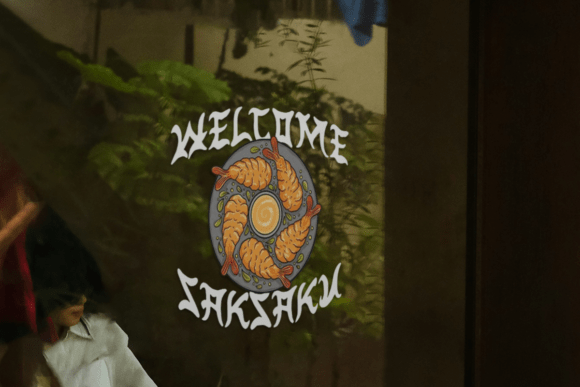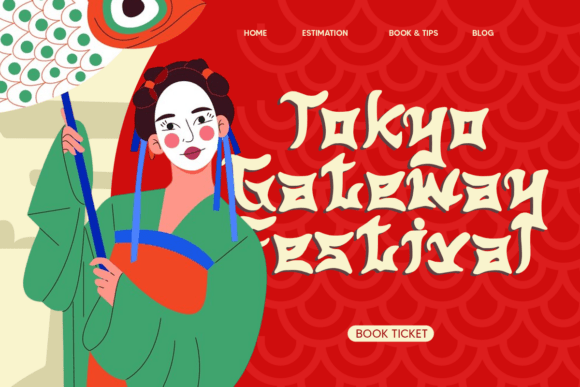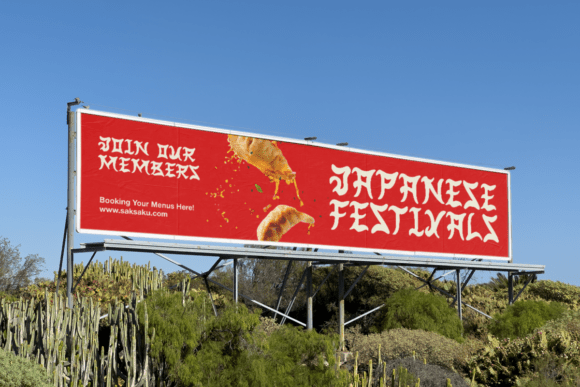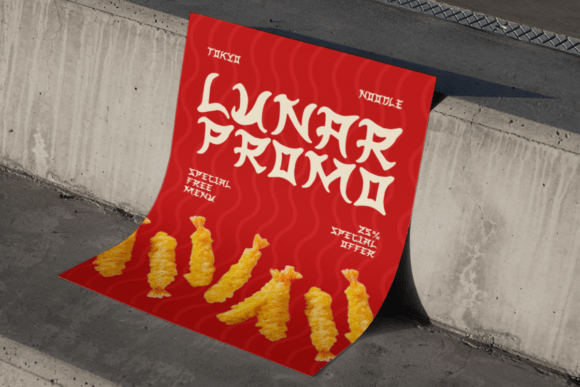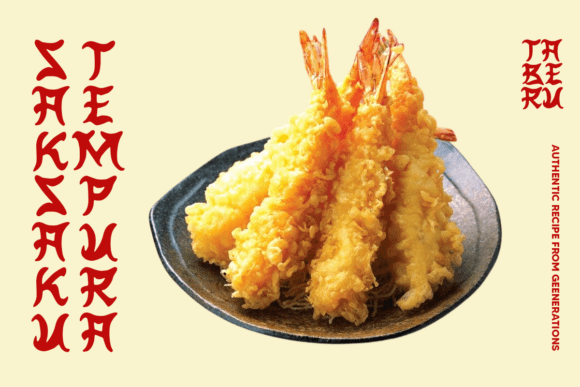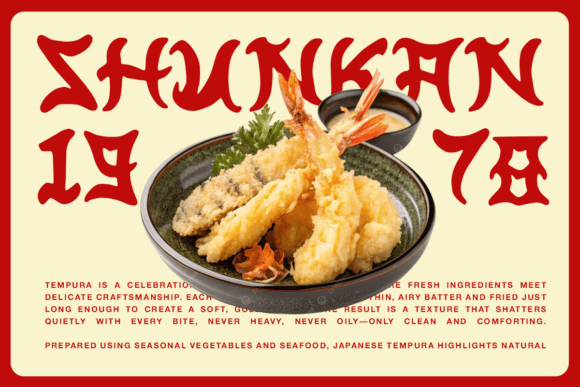
Introducing Hashira Senju Font: A Bold and Expressive Display Font
Are you looking for a font that can instantly capture attention and deliver an authentic Japanese atmosphere? Look no further than Hashira Senju Font, a bold and expressive display font inspired by traditional Japanese calligraphy and modern street food culture. In this article, we’ll explore the unique features of Hashira Senju and how it can elevate your designs, whether you’re a designer, crafter, or simply a typography enthusiast.
The Inspiration Behind Hashira Senju
Hashira Senju is a font that draws inspiration from the rich cultural heritage of Japan. Its sharp strokes, dynamic forms, and handcrafted feel bring a strong oriental character that is instantly recognizable. The font’s creator aimed to capture the vibrant energy of modern Japanese street food culture, while paying homage to traditional calligraphy techniques. The result is a font that exudes a sense of authenticity and cultural depth.
Key Features of Hashira Senju Font
So, what makes Hashira Senju stand out from other display fonts? Here are some of its key features:
- Bold and Expressive: Hashira Senju is a bold and expressive font that demands attention. Its sharp strokes and dynamic forms create a powerful visual impact that’s perfect for headlines and branding purposes.
- Handcrafted Feel: The font’s handcrafted feel gives it a unique, organic look that sets it apart from more traditional fonts.
- Single Regular Style: Hashira Senju is designed in a single Regular style, making it easy to use and versatile for a variety of design applications.
- High Readability: Despite its bold and expressive nature, Hashira Senju maintains high readability, making it perfect for use in headlines, titles, and branding.
Use Cases for Hashira Senju Font
So, how can you use Hashira Senju in your designs? Here are some ideas to get you started:
- Ramen Shops and Sushi Brands: Hashira Senju is perfect for creating bold and eye-catching signage, menus, and branding for ramen shops and sushi restaurants.
- Street Food Packaging: The font’s bold and expressive nature makes it ideal for street food packaging, adding a touch of cultural authenticity to your brand.
- Restaurant Signage: Hashira Senju is a great choice for restaurant signage, creating a bold and attention-grabbing visual impact that draws customers in.
- Festival Posters: The font’s vibrant energy and cultural depth make it perfect for festival posters, flyers, and promotional materials.
- Menu Designs: Hashira Senju can add a touch of elegance and sophistication to menu designs, making your offerings stand out.
- Asian-Themed Branding: The font’s strong oriental character makes it a great choice for Asian-themed branding, adding cultural depth and authenticity to your brand.
Tips for Using Hashira Senju Font
Here are some tips for getting the most out of Hashira Senju:
- Use it Boldly: Hashira Senju is a bold font, so don’t be afraid to use it boldly. Experiment with large font sizes and bold colors to create a striking visual impact.
- Mix and Match: Try pairing Hashira Senju with other fonts to create a unique and interesting contrast.
- Play with Colors: The font’s bold and expressive nature makes it perfect for experimenting with bright and bold colors.
In conclusion, Hashira Senju Font is a bold and expressive display font that brings a strong oriental character to your designs. Its sharp strokes, dynamic forms, and handcrafted feel make it perfect for a variety of design applications, from ramen shops and sushi brands to street food packaging and festival posters. With its high readability and versatile single Regular style, Hashira Senju is a great choice for designers, crafters, and anyone looking to add a touch of cultural authenticity to their typography.